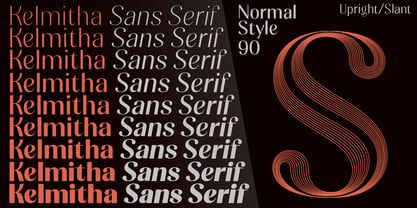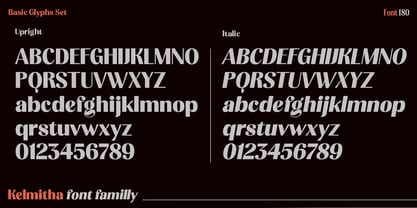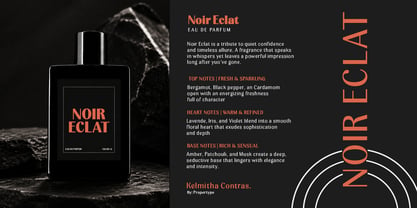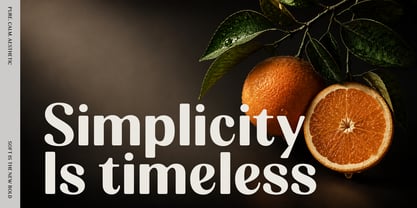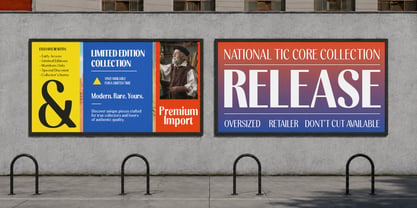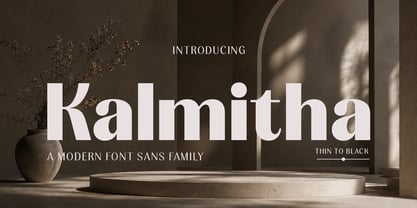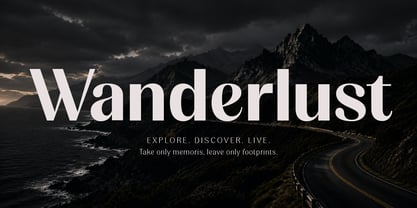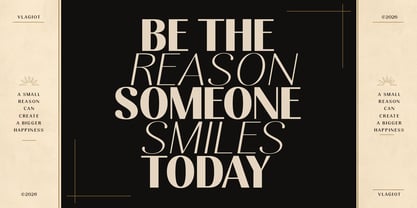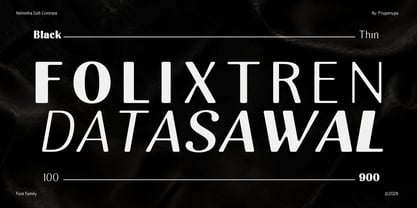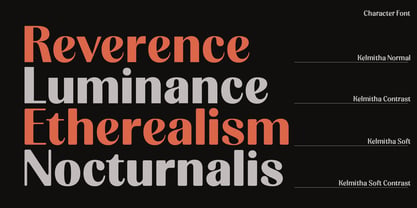
Kelmitha
Kelmitha is a modern variable serif typeface that blends luxury, clarity, and contemporary elegance into one highly versatile font family. Kelmitha features a confident yet graceful character, making it ideal for premium and modern design applications.
Kelmitha offers up to 360 styles, including both upright and italic forms. This extensive flexibility allows designers to refine typography with precision—from clean, minimalist layouts to bold, expressive statements. Balanced proportions, high legibility, and consistent rhythm work beautifully across a wide range of large display sizes and smaller text settings.
Key features:
Fully variable font for maximum flexibility. Luxurious modern serif characters. Balanced sharp and soft shapes for a premium feel. A comprehensive font family suitable for both display and text use.
Kelmitha empowers designers with creative freedom and typographic consistency—one sophisticated font family for modern visual communication.